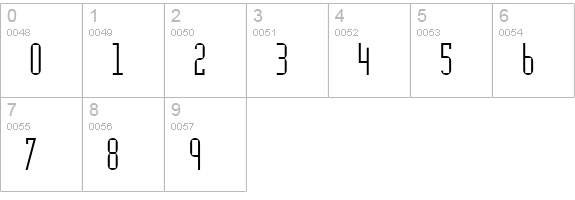
SlimpiSquares Font Details
SlimpiSquares is a modern and sleek font that is perfect for adding a touch of sophistication to any design project. With its clean lines and geometric shapes, this font brings a sense of elegance and professionalism to any text. The slim and square letterforms create a harmonious balance, making it visually appealing and easy to read. This font is not only visually stunning but also incredibly versatile. It can be used for a wide range of applications, from logo design to branding, packaging, and web design. Whether you are creating a sleek and minimalistic website or designing a high-end business card, SlimpiSquares will elevate your design to the next level. One of the best things about SlimpiSquares is that it is completely free. That's right, you can download this font for free at FontsMarket.com. This means that you can use it in your personal and commercial projects without any restrictions. Whether you are a professional designer or a hobbyist, SlimpiSquares is accessible to everyone. So why wait? Download SlimpiSquares today and start adding a touch of elegance to your designs. With its clean and modern aesthetic, this font is sure to make a lasting impression. Don't miss out on this fantastic opportunity to enhance your creative projects with a high-quality, freely available font.